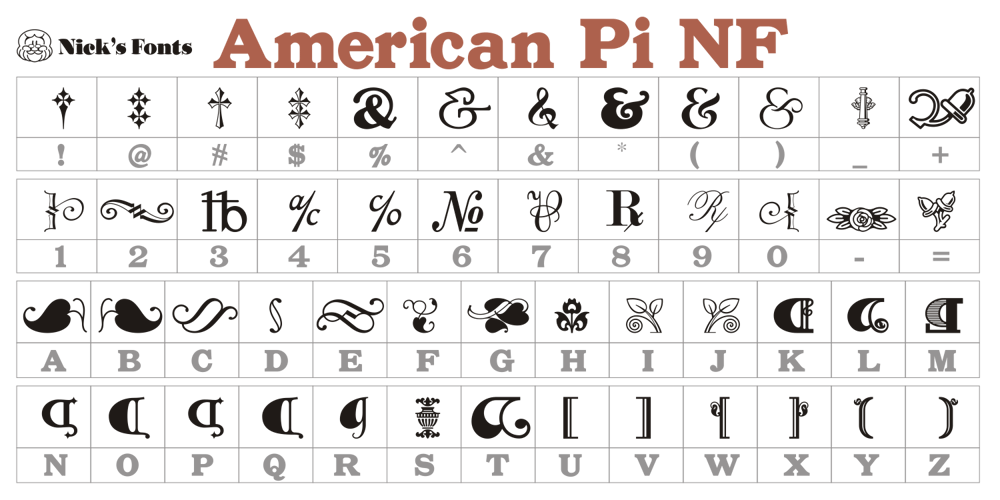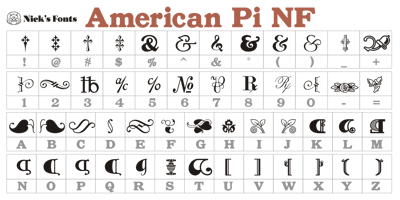
American Pi NF Font Family was designed by Nick Curtis and published by Nick’s Fonts. American Pi NF contains 1 styles and family package options. Here’s a handy collection of 72 type adornments gleaned from American Type Foundry catalogs from 1913 to 1934, featuring little treasures from some of the early twentieth century’s most respected designers, including Will Bradley, Frederic Goudy and George Trenholm. Among the goodies are fleurons, pilcrows, guidons, bishops fingers, mortised initial frames and several other useful elements to dress up your documents.